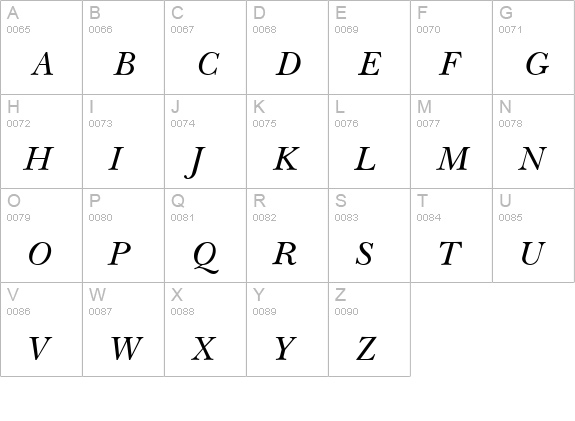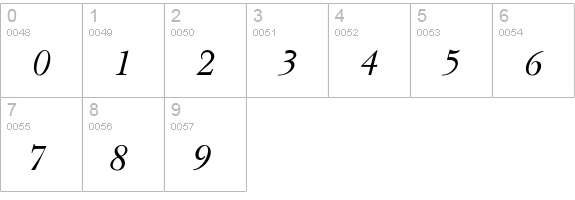
Baskerville Light SSi Light Italic Font Details
Baskerville Light SSi Light Italic is a refined, elegant, italic variant in the Baskerville typeface family \xE2\x80\x94 well suited to elegant body text, refined sub-headings, and luxury branding.
Baskerville Light SSi Light Italic font exudes elegance and sophistication with its delicate and graceful design. The italic style adds a touch of modernity while still maintaining the timeless appeal of the Baskerville typeface. The slender strokes and subtle curves create a sense of refinement and class, making this font perfect for projects that require a touch of sophistication. What makes Baskerville Light SSi Light Italic font even more appealing is that it is available for free download at FontsMarket.com. This means that you can easily access this beautiful font for your creative projects without any cost. Whether you're working on a branding project, invitations, or any other design that calls for a touch of elegance, Baskerville Light SSi Light Italic font is sure to elevate your work to the next level. Download it today and add a touch of timeless beauty to your designs.